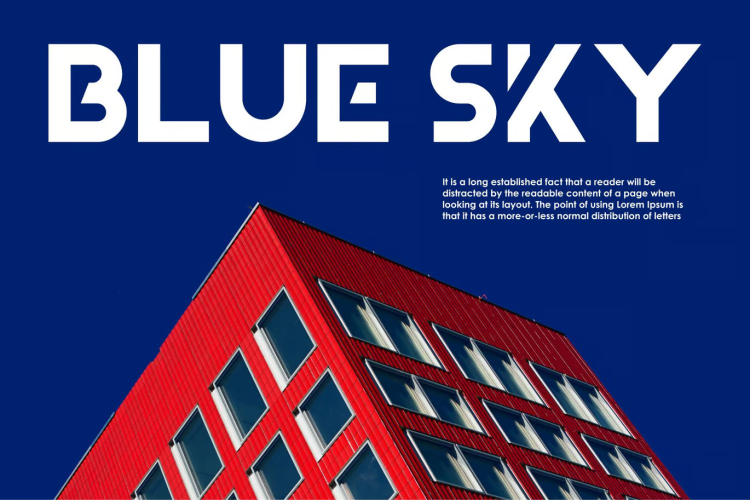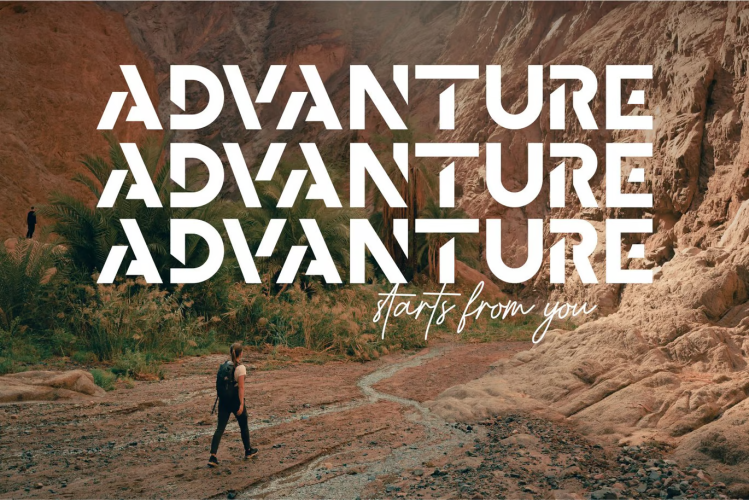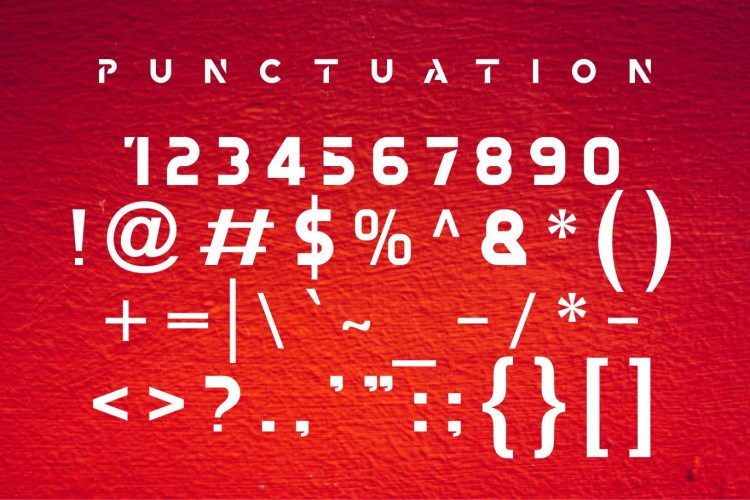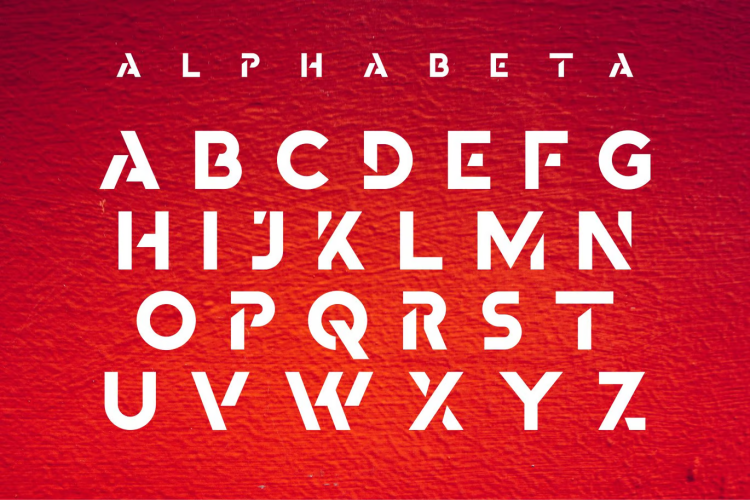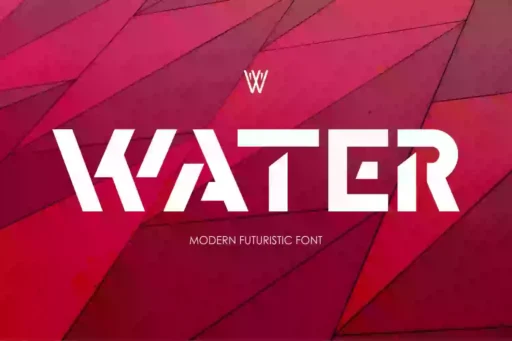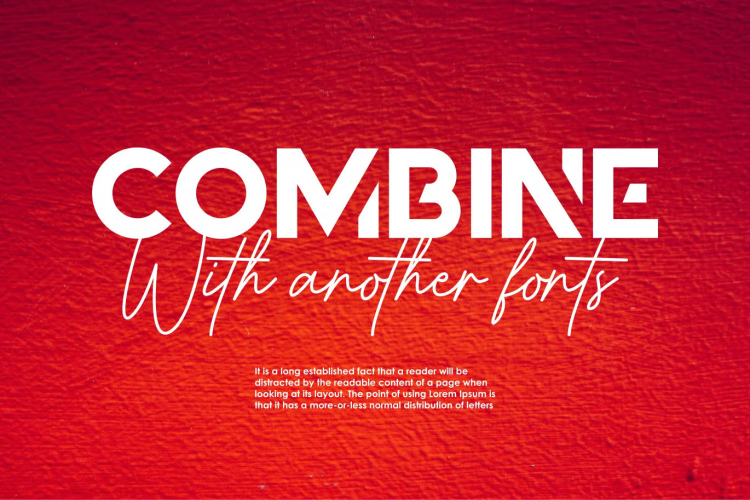
Water Font
Water is a futuristic font with a sharp, cyberpunk style. It blends minimalism with modern design. This font inspires creators to envision the future. Water fits well with modern, sci-fi, galaxy, and space-themed fonts.
Where Water Font works best
Water Font stays legible at small sizes, which makes it a strong choice for navigation, buttons and dashboards in web design and app interfaces.
Clean sans serifs like Water Font are the default language of SaaS, fintech and product branding.
What is Water Font good for?
Water Font is a Sans Serif Fonts typeface tagged Minimalist, Modern, Professional, Sans Serif. It works well for headlines, logos, posters, social media graphics and branding projects that need a distinctive sans serif fonts look.